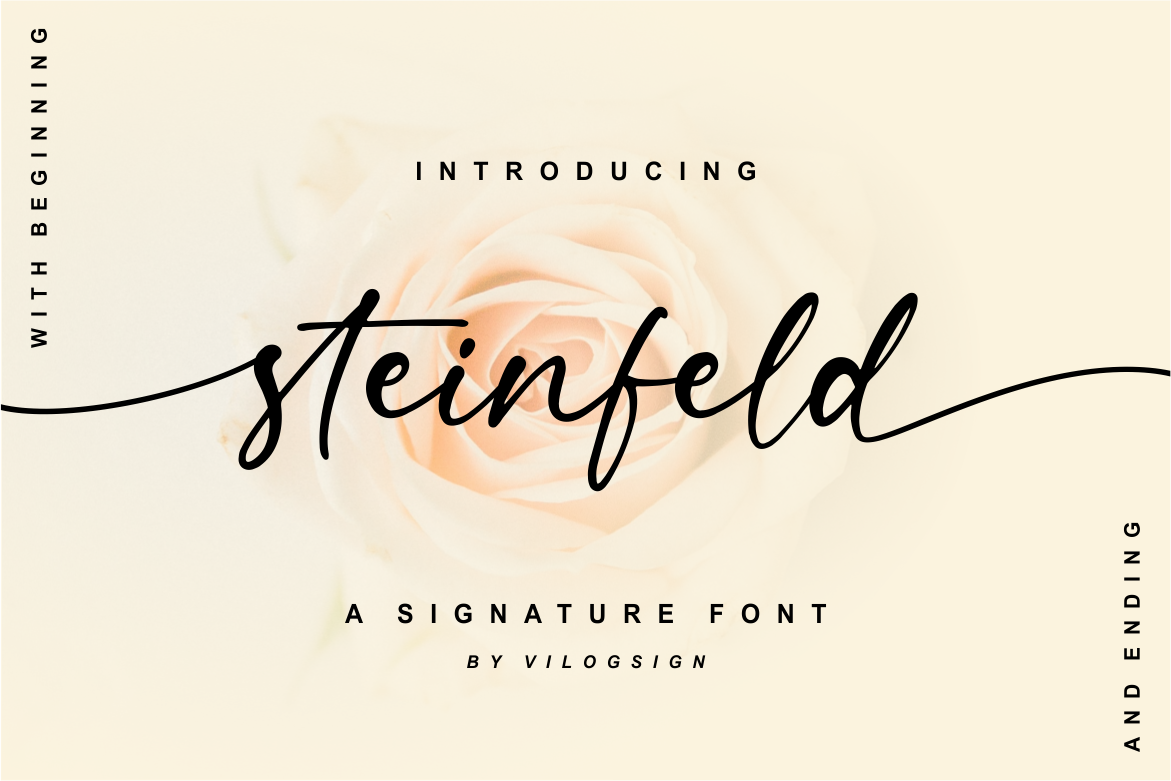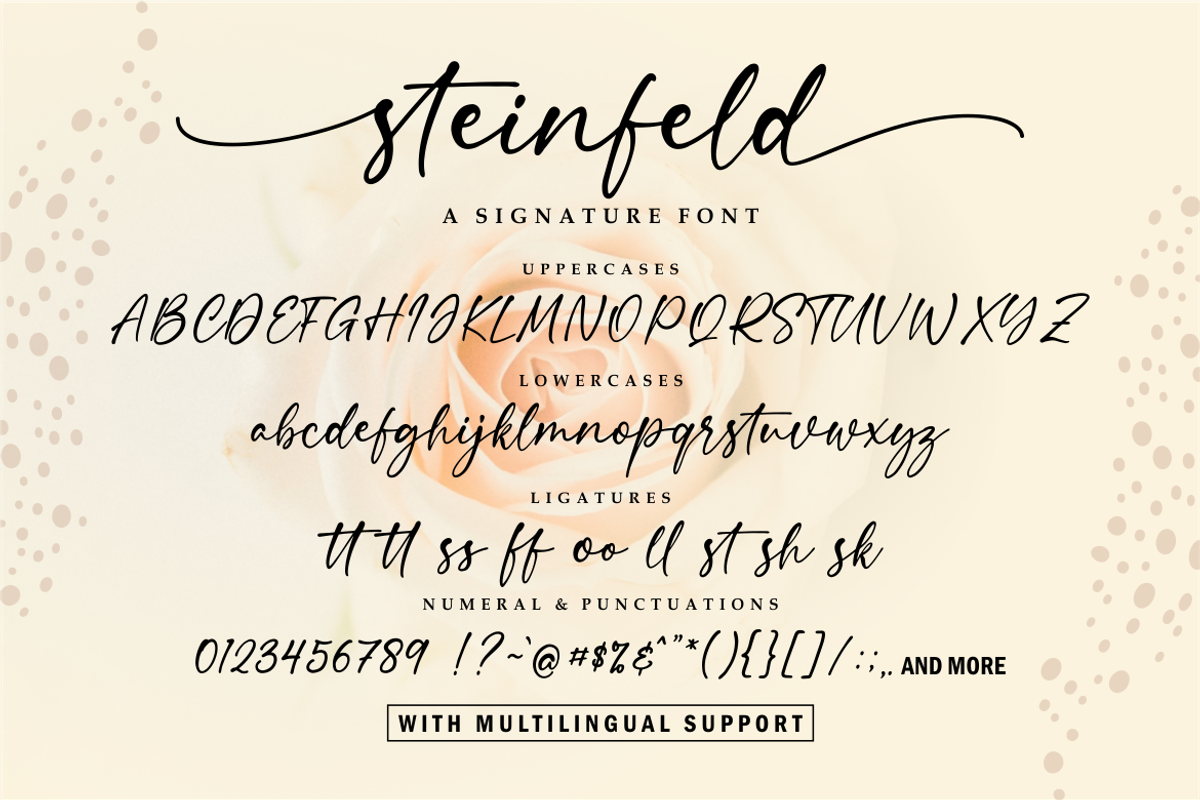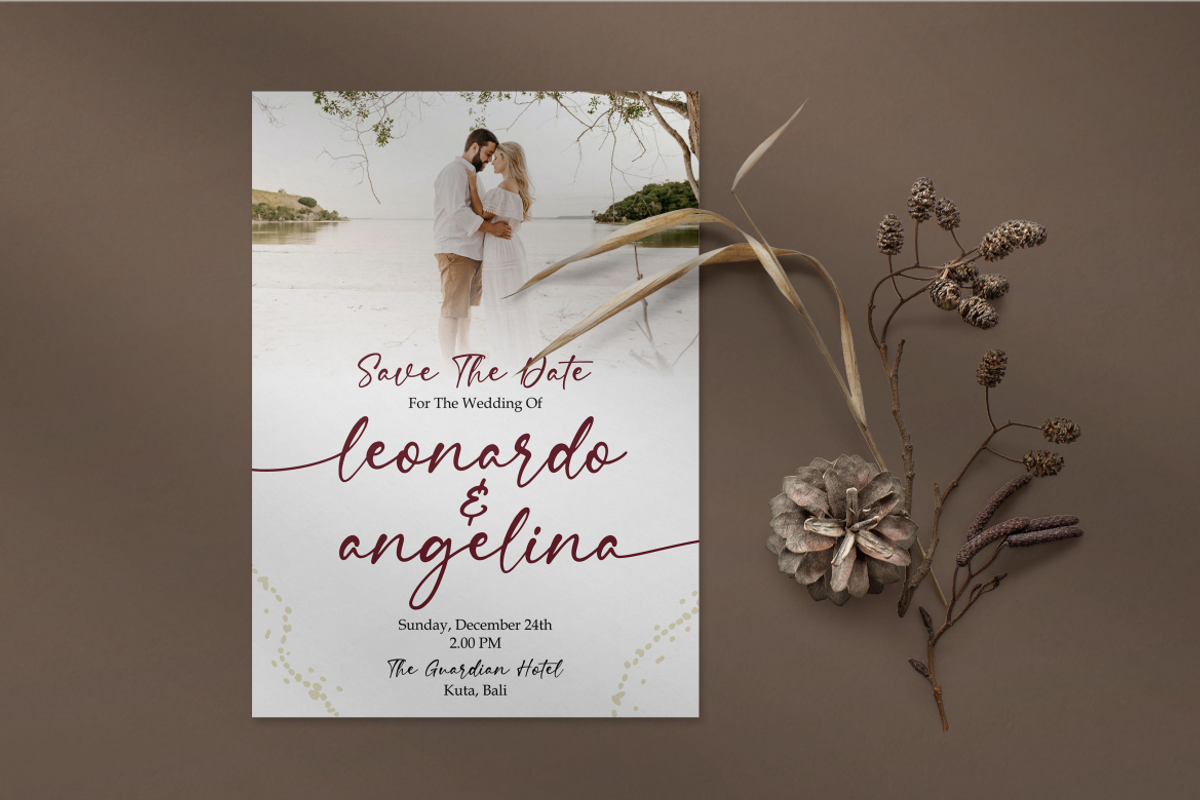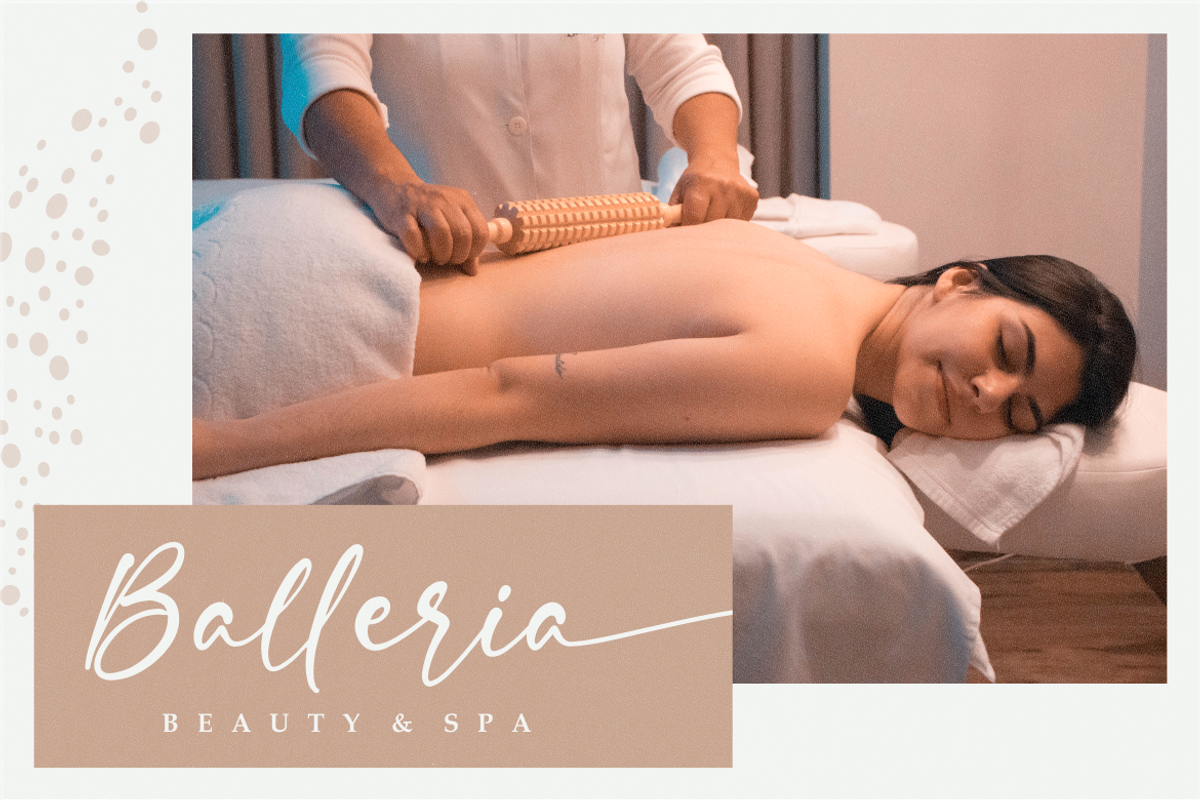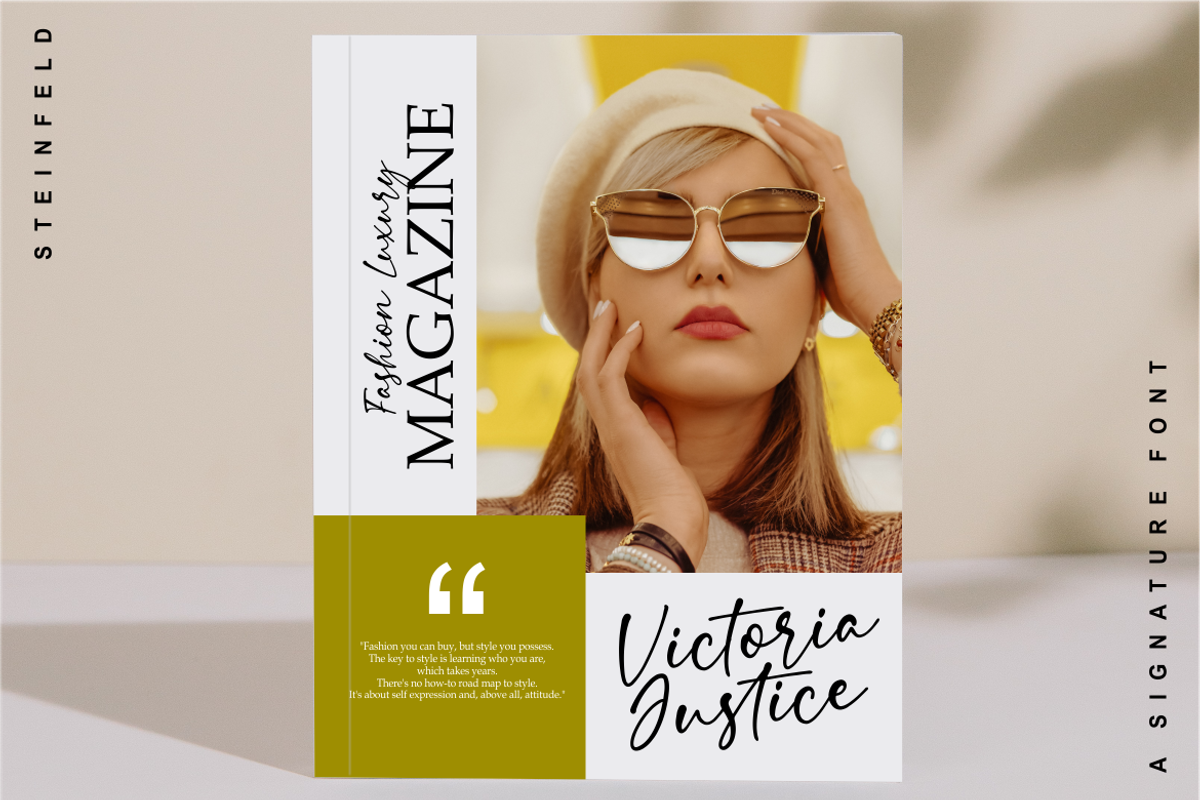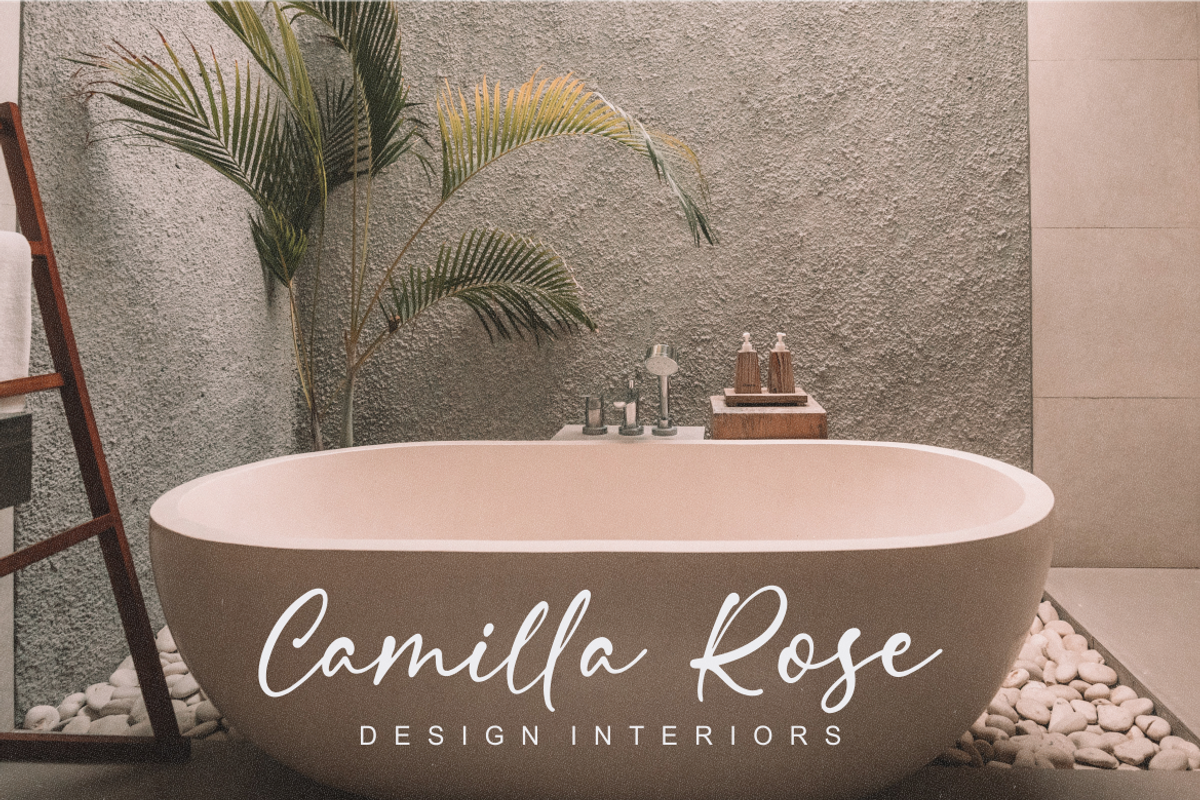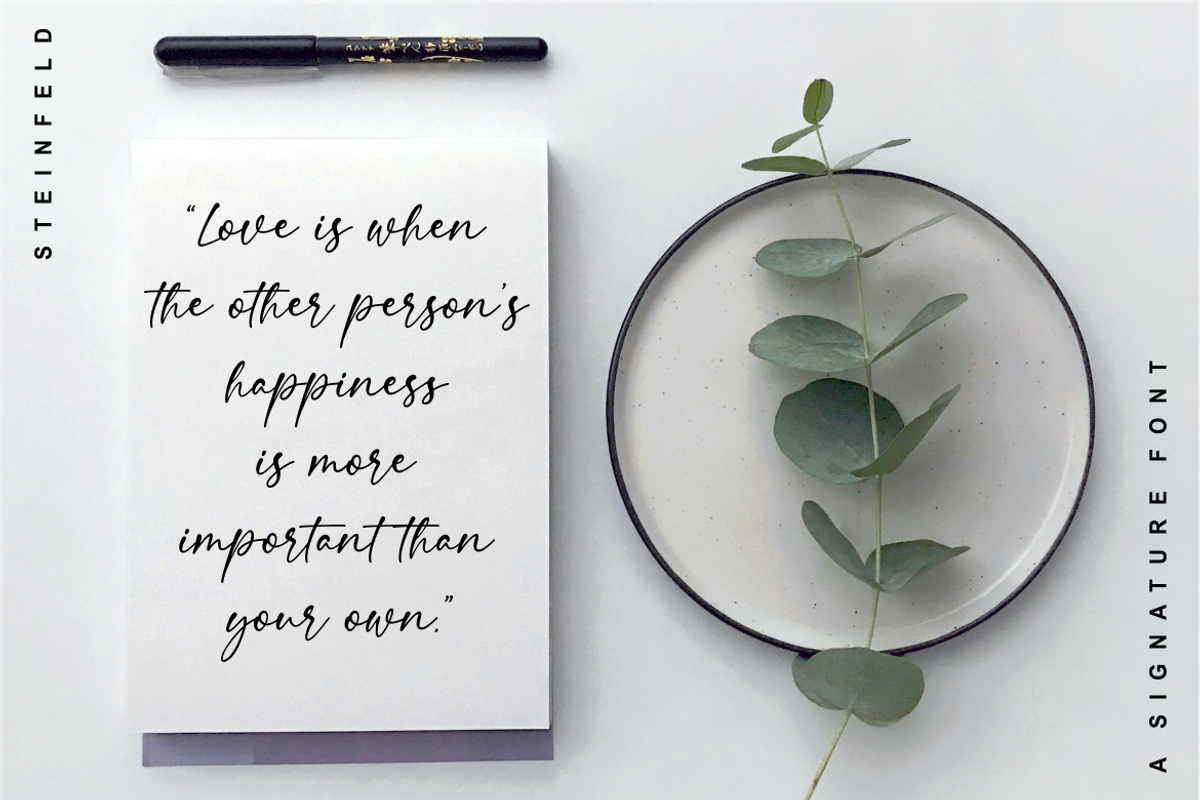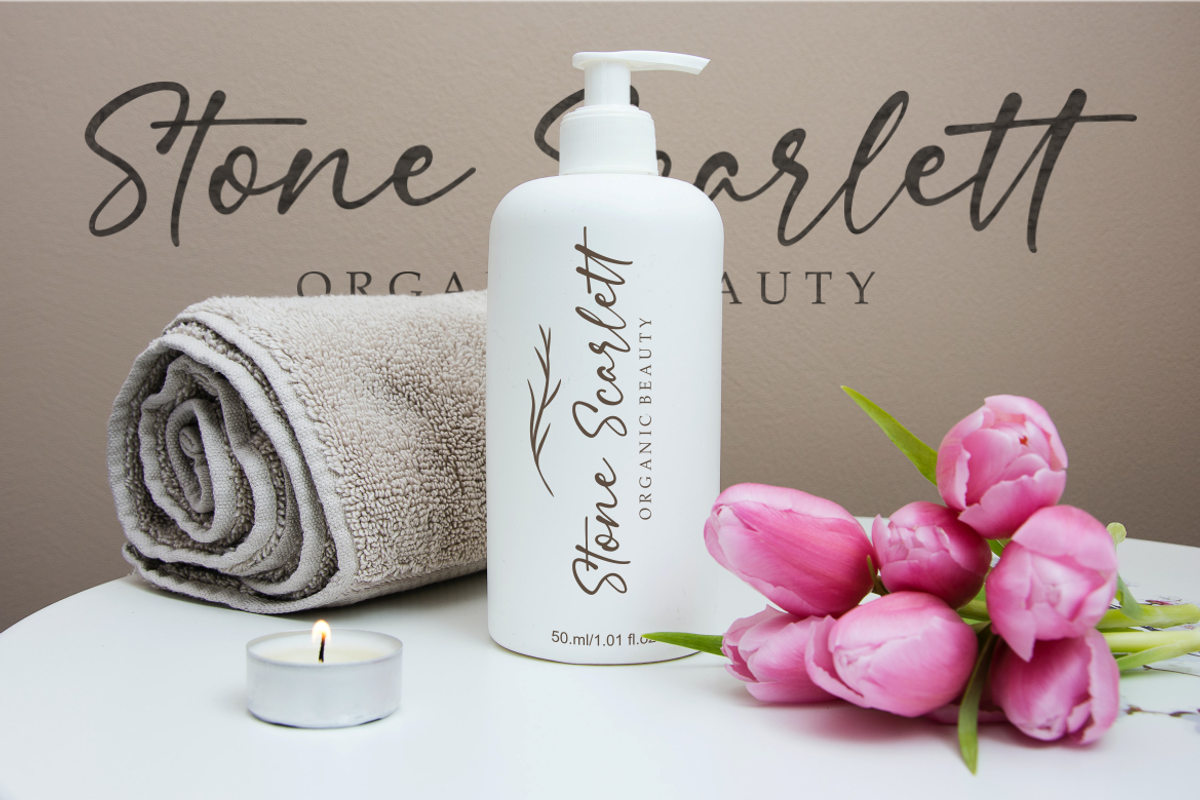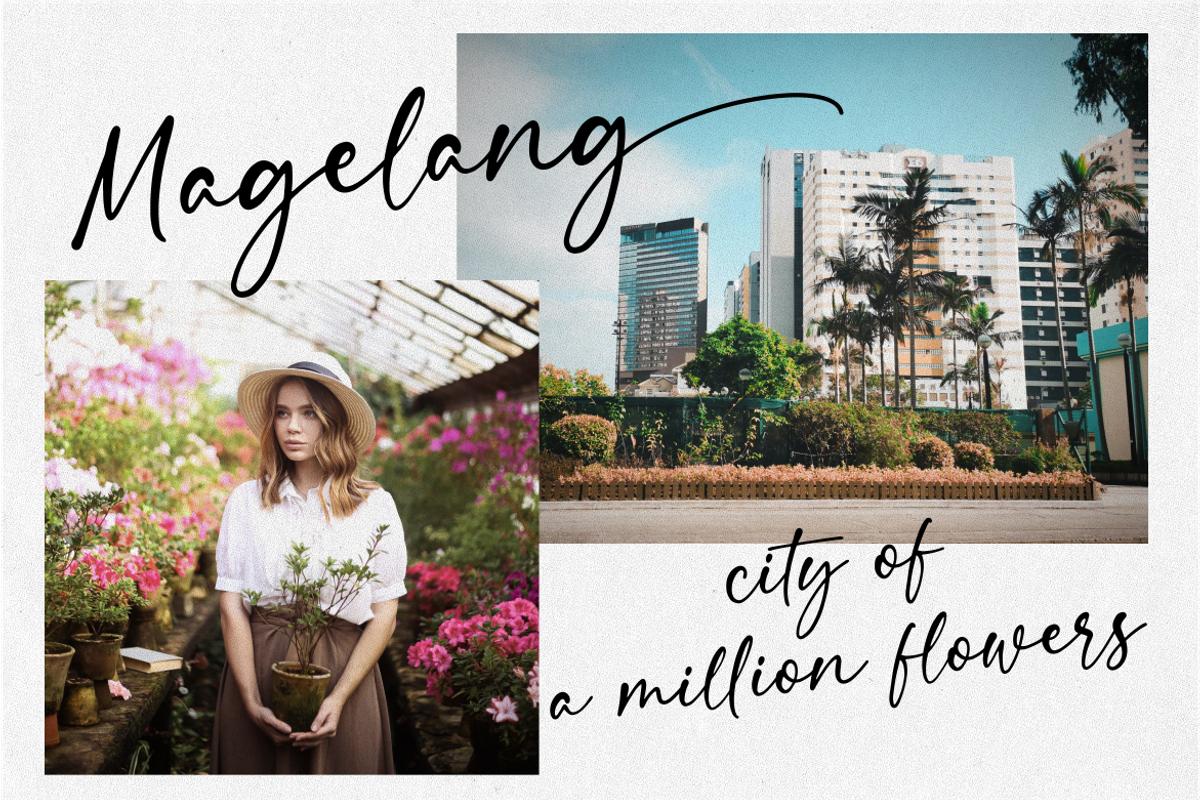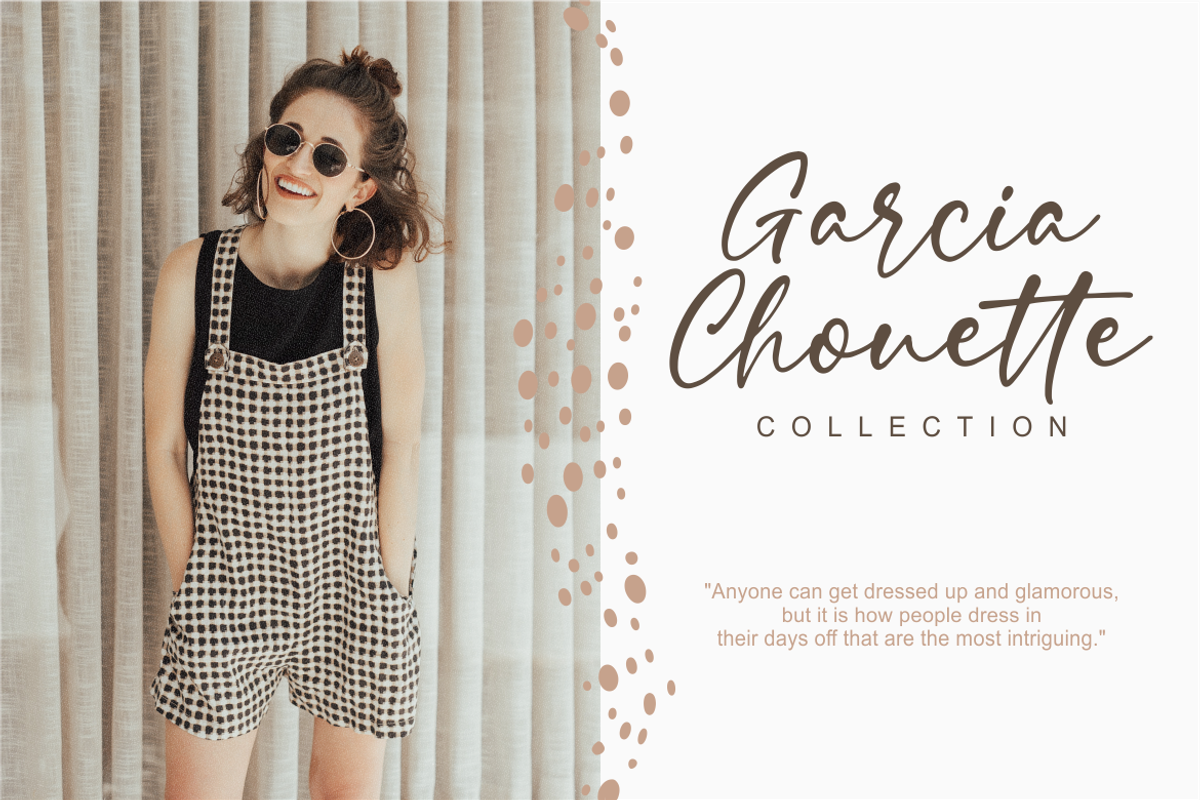
Steinfeld a Handwritten Font
Hi,,, Introducing "Steinfeld" a Chic Handwritten Script Font!!!
Made with very serious With Beginning, Ending, and another altenative make to make this font unique, chic, beautiful So perfect for your need. This font is very good with multilingual support to complete your need. Very suitable to make a branding, Poster, magazine, greeting card, fashion, quotes, logo, packaging, and other.
- Beginning and ending